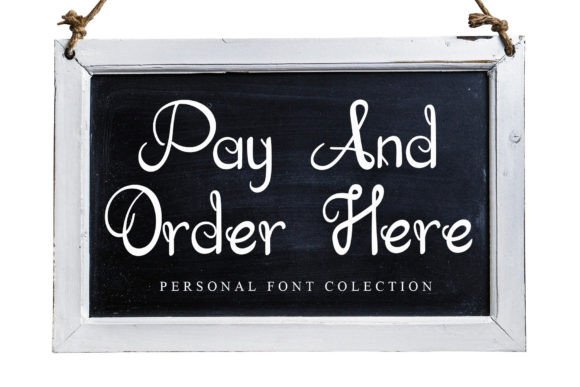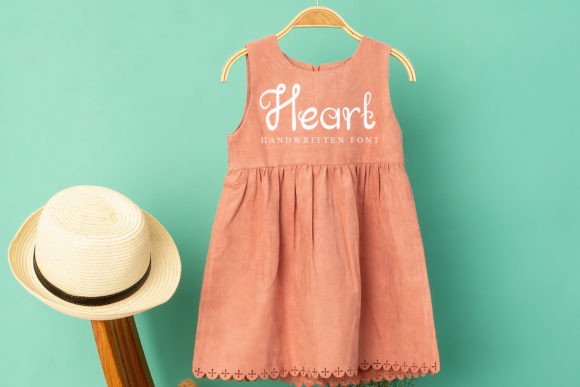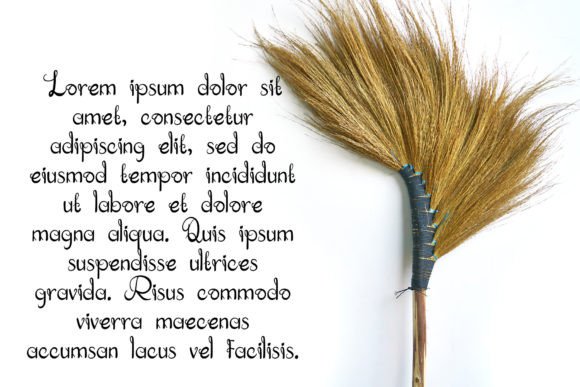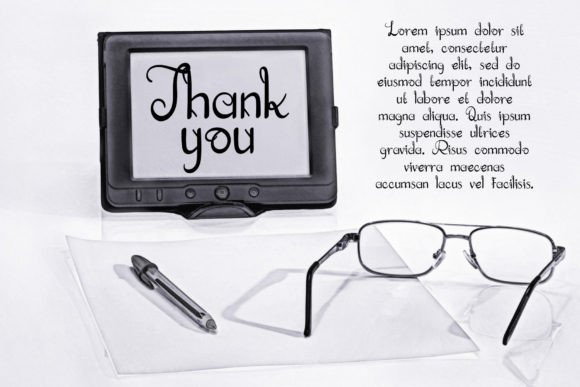
Discover the Elegance of Amelia Font: A Perfect Choice for Creative Designs
Are you a designer or crafter looking for a unique and elegant font to elevate your creative projects? Look no further than Amelia Font. This beautiful, handwritten font is perfect for adding a touch of sophistication and personality to your designs. In this article, we’ll explore the features and benefits of Amelia Font, and why it’s a great choice for a variety of design applications.
What is Amelia Font?
Amelia Font is a distinctive and elegant font that features a varied baseline, created with a natural, hand-made touch. This unique characteristic gives Amelia Font a warm and inviting feel, making it perfect for designs that require a personal and human touch. Whether you’re creating wedding invitations, greeting cards, billboards, logos, business cards, or any other design that requires a handwritten touch, Amelia Font is an excellent choice.
Key Features of Amelia Font
- Unique and Elegant Design: Amelia Font boasts a beautiful, handwritten design that adds a touch of sophistication to any project.
- Varied Baseline: The font’s varied baseline creates a natural, hand-made look that makes your designs stand out.
- Versatile: Amelia Font is suitable for a wide range of design applications, from wedding invitations and greeting cards to billboards, logos, and business cards.
- Handmade Touch: The font’s handmade touch gives your designs a personal and human feel, making them more relatable and engaging.
Why Choose Amelia Font?
There are many reasons why Amelia Font is a great choice for designers and crafters. Here are a few:
- Adds a Personal Touch: Amelia Font’s handmade touch adds a personal and human feel to your designs, making them more engaging and relatable.
- Enhances Creativity: The font’s unique and elegant design inspires creativity and helps you to create spectacular creations that stand out from the crowd.
- Perfect for Various Design Applications: Amelia Font is suitable for a wide range of design applications, making it a versatile and convenient choice.
- Easy to Read: Despite its handmade touch, Amelia Font is easy to read and understand, making it perfect for designs that require clear communication.
How to Use Amelia Font in Your Designs
Using Amelia Font in your designs is easy. Here are a few tips to get you started:
- Pair with Other Fonts: Amelia Font pairs well with other fonts, so feel free to experiment with different combinations to create a unique look.
- Use for Headings and Titles: Amelia Font is perfect for headings and titles, where its elegant design can make a big impact.
- Add a Personal Touch: Use Amelia Font to add a personal touch to your designs, such as in wedding invitations, greeting cards, and other personal communications.
In conclusion, Amelia Font is a unique and elegant font that is perfect for designers and crafters looking to add a touch of sophistication and personality to their creative projects. Its handmade touch, varied baseline, and versatile design make it suitable for a wide range of design applications. Whether you’re creating wedding invitations, greeting cards, billboards, logos, business cards, or any other design that requires a handwritten touch, Amelia Font is an excellent choice.
So why not give Amelia Font a try? With its beautiful design and versatile features, it’s sure to become a favorite in your design toolkit.